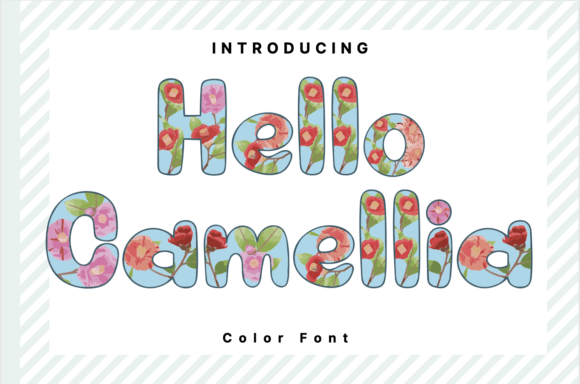
Embark on a typographic journey through the enchanted world of Hello Camellia, a captivating display font that blossoms with the beauty of nature. This font is not just a collection of letters; it's an artistic expression that brings the magic of flowers into your digital creations.
Hello Camellia is a feast for the eyes, a font that dances like petals in the wind. Each character blooms with intricate details, evoking the charm of a secret garden. Whether you're a seasoned designer or a creative enthusiast, Hello Camellia will ignite your imagination and take your designs to new heights.
With Hello Camellia, you'll discover the true meaning of readability. This font is meticulously crafted to ensure effortless comprehension, making it ideal for long texts, e-books, and reports. Its graceful curves and open letterforms guide the reader's eyes smoothly across the page, creating an immersive and enjoyable reading experience.
Hello Camellia is not confined to the realm of words; it's a multi-talented font that seamlessly transitions from the printed page to the digital world. Create captivating social media graphics, eye-catching logos, and enchanting invitations that come alive with the vibrancy of Hello Camellia.
This font is more than just a tool; it's a muse that inspires creativity. Whether you're a designer seeking to elevate your projects or a hobbyist seeking to add a touch of elegance to your creations, Hello Camellia will captivate your audience and leave them spellbound.